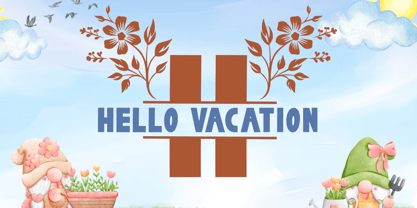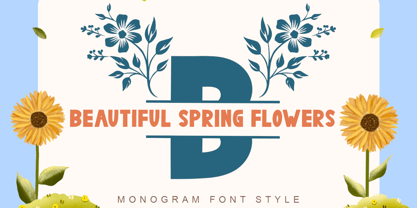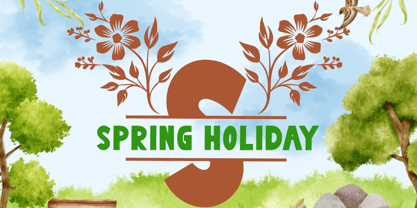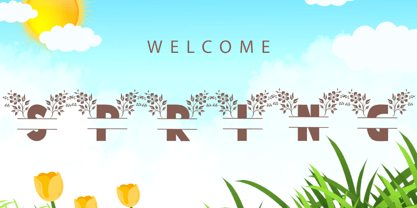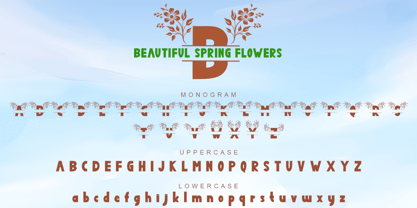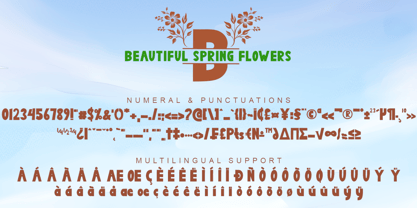
Beautiful Spring Flowers
by Yoga Letter
The Beautiful Spring Flowers Font Family was designed by Isroni Yoga Prasetya and published by Yoga Letter. Beautiful Spring Flowers contains 2 styles and family package options. More about this family
"Beautiful Spring Flowers Monogram" is a unique and beautiful monogram font. This font is equipped with monogram letters, uppercase, lowercase, numerals, punctuations and multilingual support. Very suitable for weddings, invitations, logos, stickers, posters, prints, branding, summer, spring, easter and others.
Designers: Isroni Yoga Prasetya
Foundry: Yoga Letter
Beautiful Spring Flowers